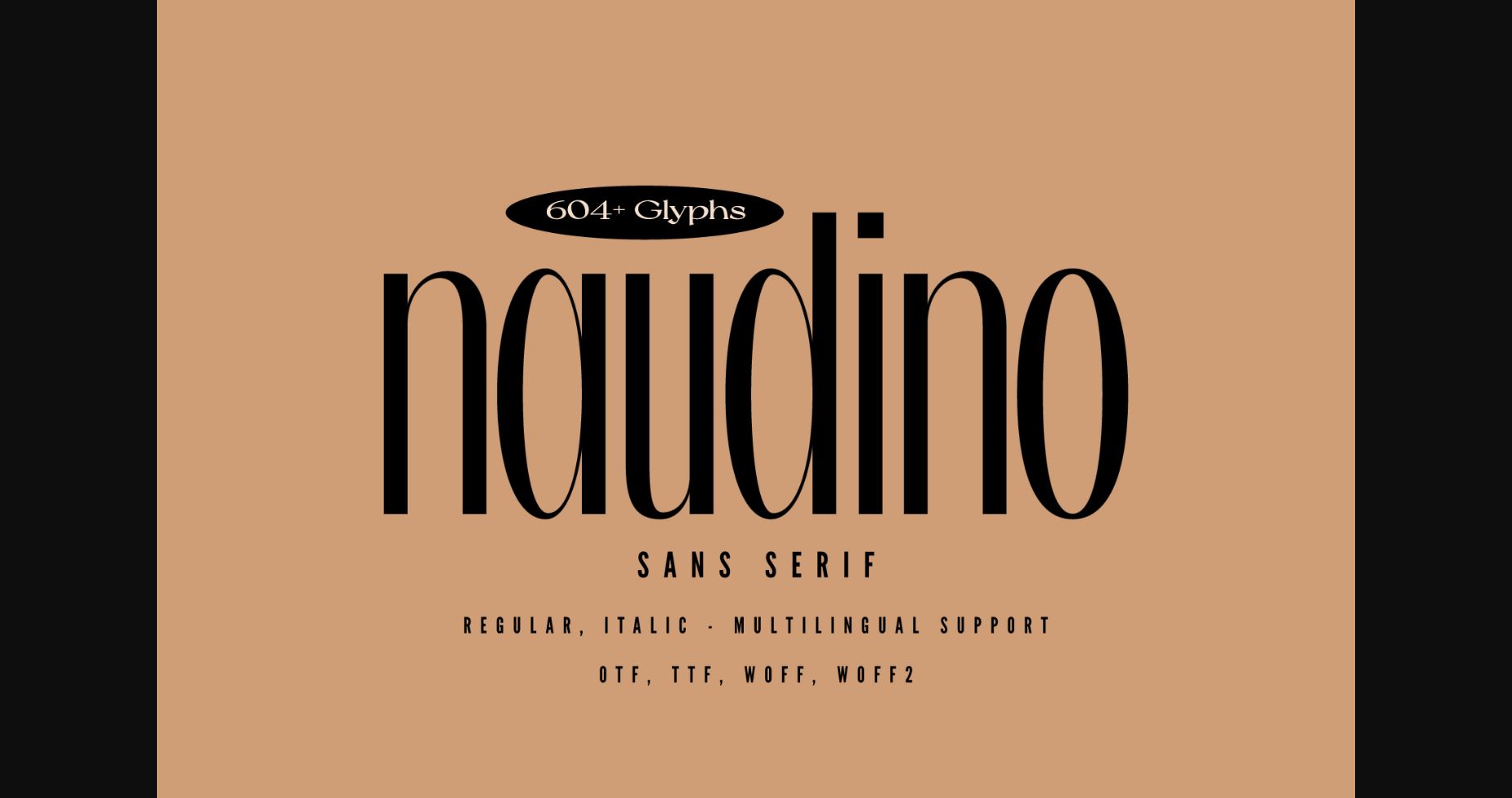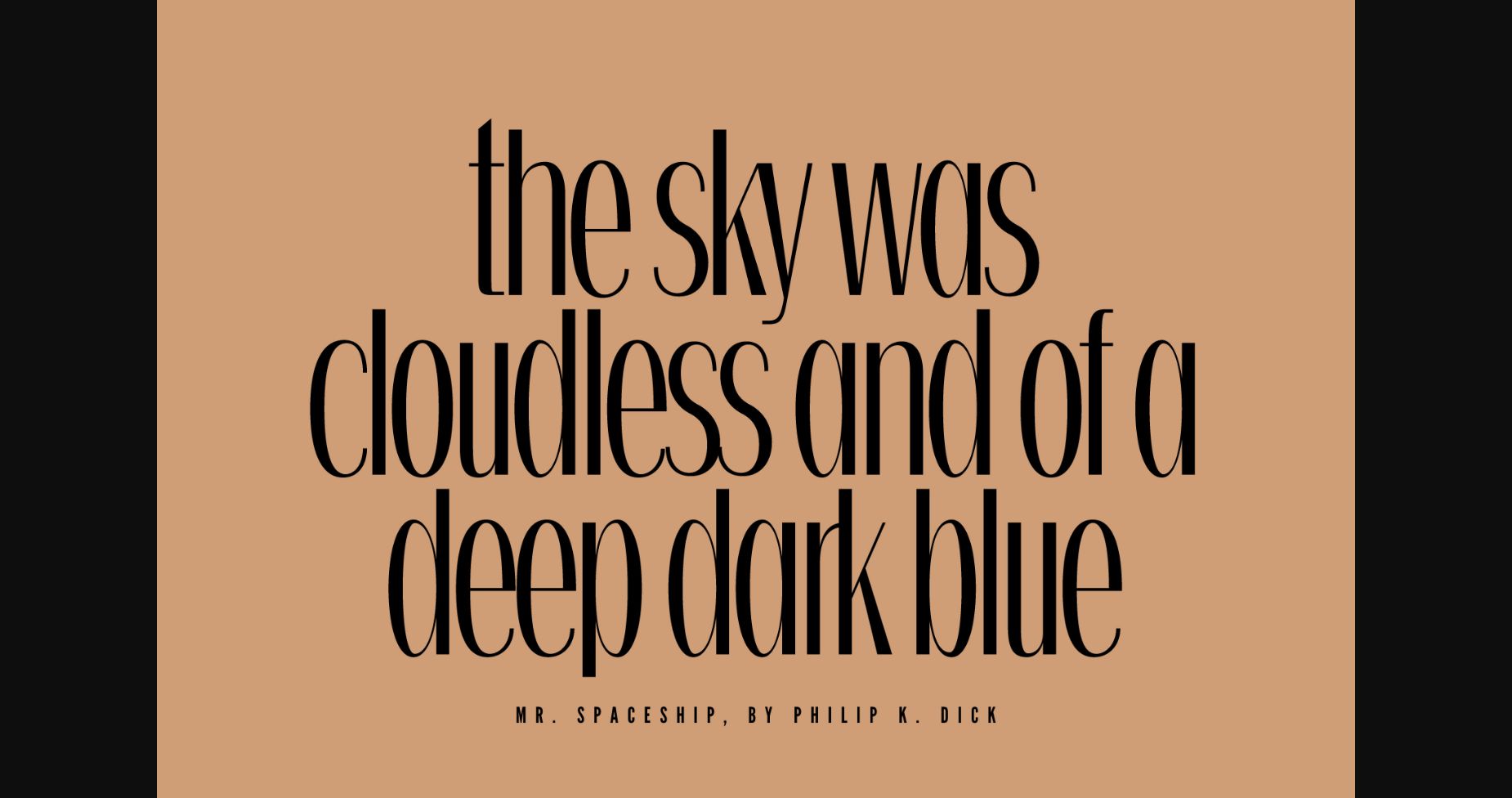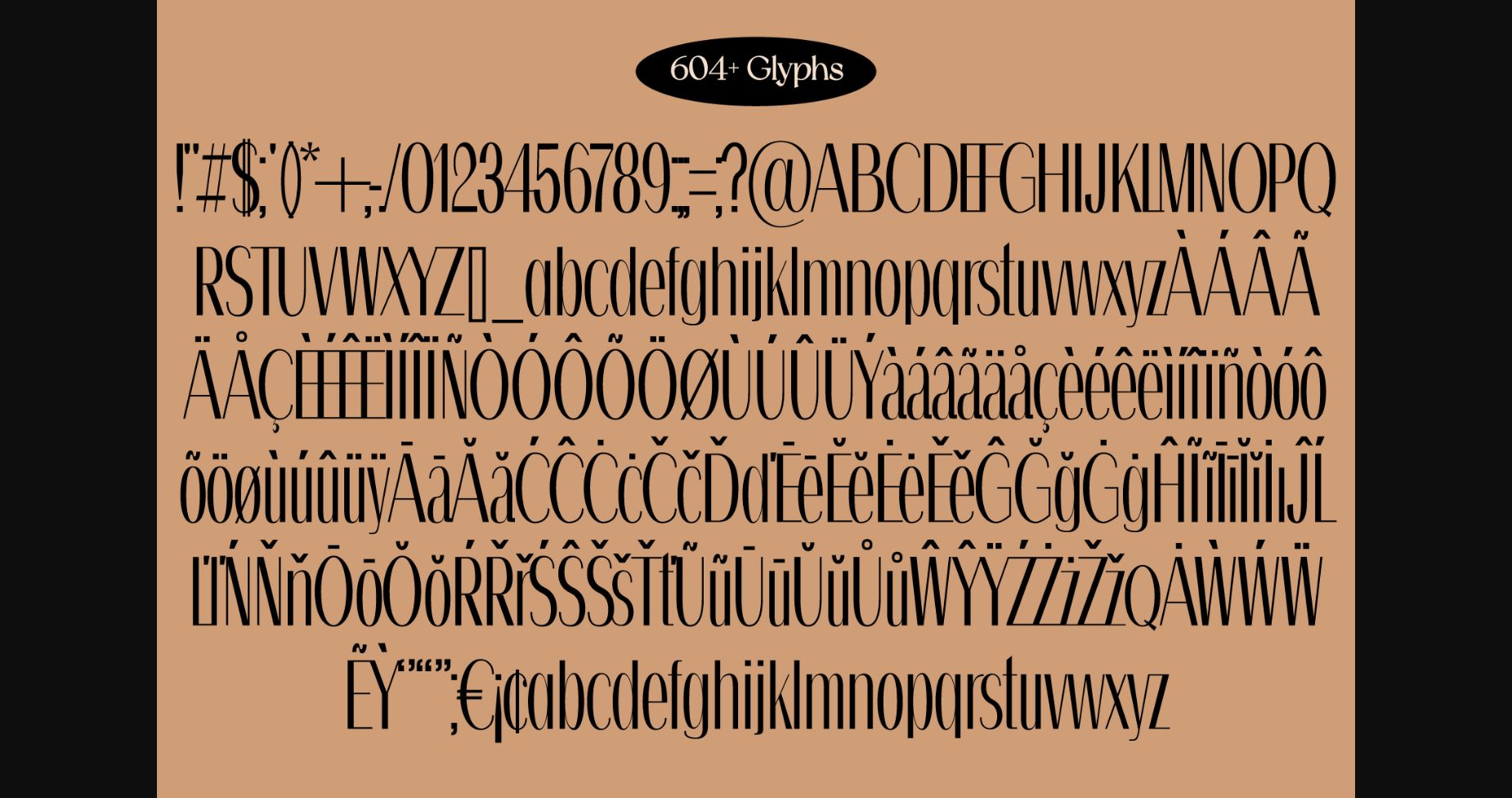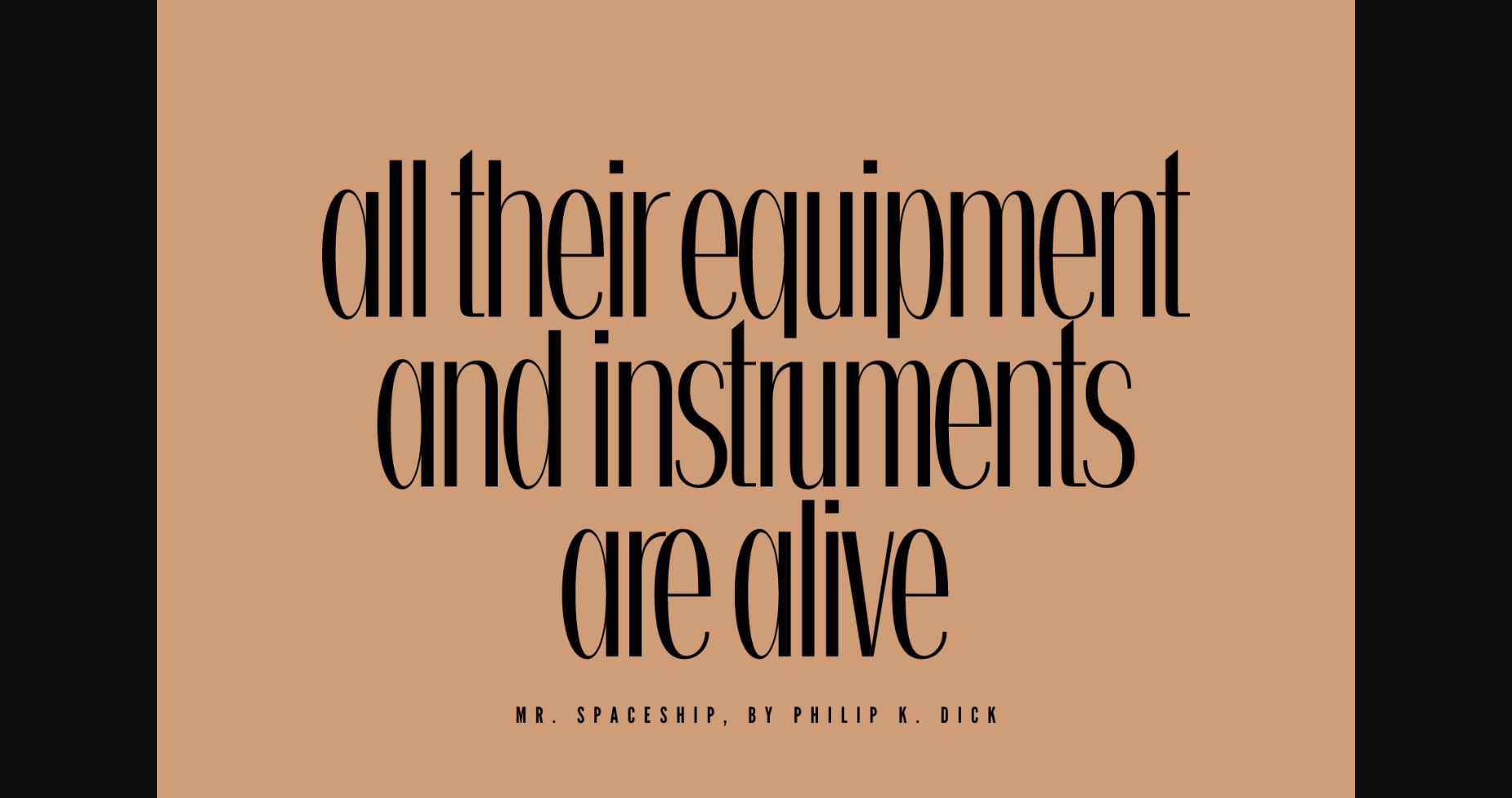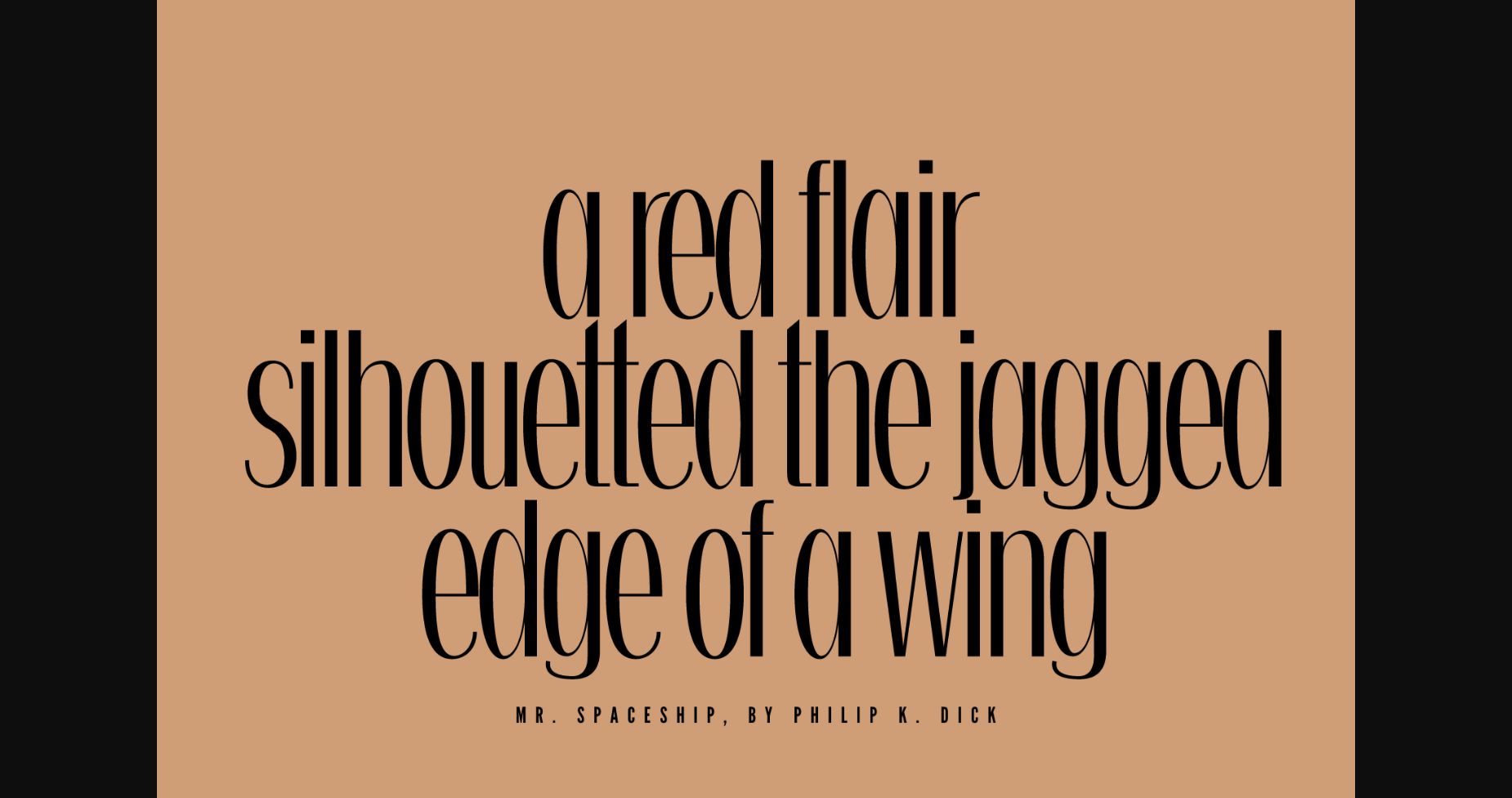
About Naudino Font
Introducing Naudini: Elevate Your Design with Minimalist Sophistication
Experience the power of Naudini, a chic and modern sans serif typeface that brings minimalist elegance to your designs. With sleek lines, refined simplicity, and contemporary flair, Naudini captivates your audience and transforms your work into timeless masterpieces. Its versatile nature and impeccable design make it the perfect choice for logos, websites, packaging, and more. Embrace the future of minimalist design with Naudini and make a lasting impression.